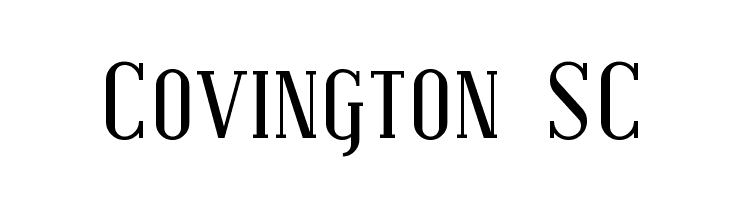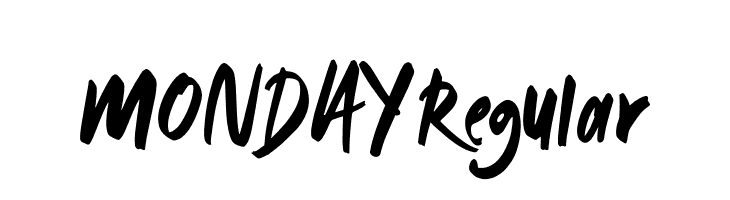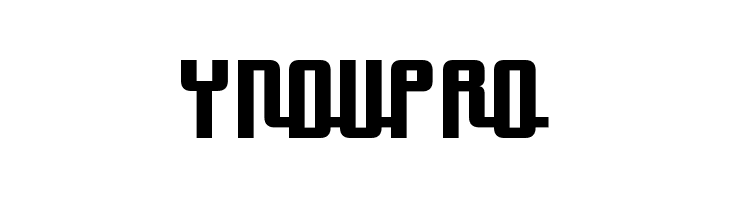
A bold, geometric font with a modern, industrial style.
A playful, dynamic font with geometric and organic shapes.
A classic serif font with elegant, elongated strokes and pronounced serifs.
A distressed, grunge-style font with a chaotic, cut-out letter appearance.
A sleek, modern font with elongated, narrow characters and a minimalist style.
A bold and playful script font with rounded edges and consistent stroke width.
A bold, rounded font with a playful and friendly style.
A graceful script font with flowing, delicate strokes and elegant flourishes.
A modern, bold, and geometric font with a futuristic aesthetic.
A bold, expressive handwritten font with dynamic strokes and a lively appearance.